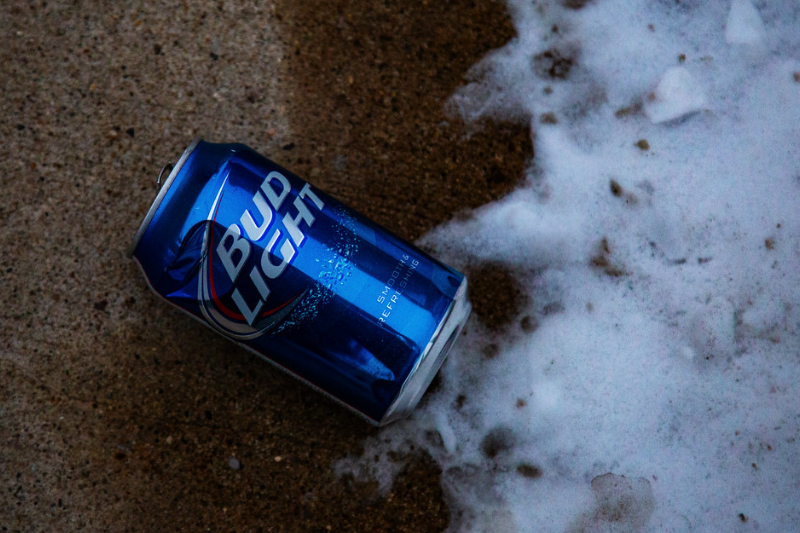
Bud Light Font Generator
Crack open some nostalgia with this free Bud Light font generator. Recreate that classic beer brand look for parody designs, tailgate graphics, and sports party content.
About the Bud Light Font Generator
Bud Light is one of the most recognizable beer brands in America, and its clean, bold typography and signature blue palette are part of why it's so deeply embedded in sports culture and tailgate tradition. Whether you're building a parody graphic, planning a game-day party, or just having fun with the aesthetic, the Bud Light font style is instantly familiar and endlessly versatile.
• Sports party and tailgate invitation graphics
• Parody label and novelty product designs
• Game-day social media posts and memes
• Bar and man-cave wall print concepts
• Fantasy football league branding and graphics